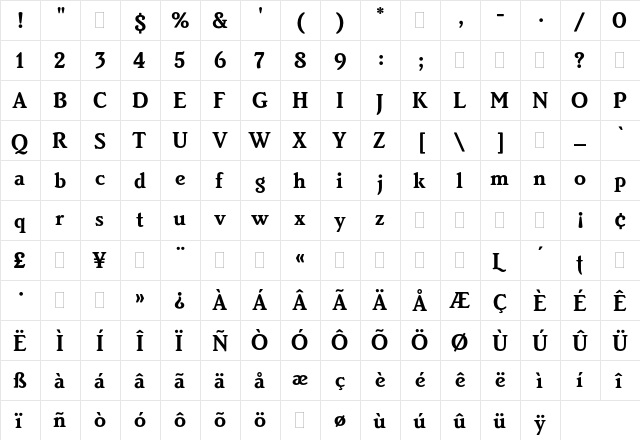
Brighton Bold Plain
Design Context for Brighton Bold Typeface
Brighton Bold is a composed and adaptable typeface that performs quietly and consistently across a wide range of design contexts. Its bold stroke weight gives it real presence on the page.